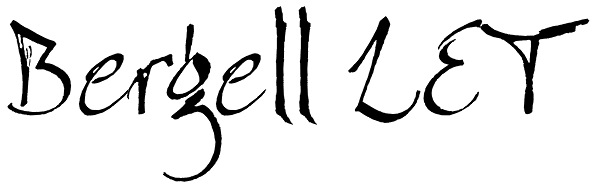
Bergell
The work of Alberto Giacometti inspired this spontaneous, calligraphic style created by German graphic designer Thomas Finke. Although somewhat abstract, this typeface is highly legible and benefits from generous letter spacing. Will enhance any...